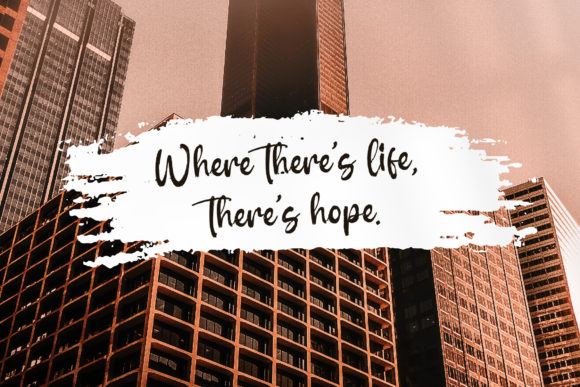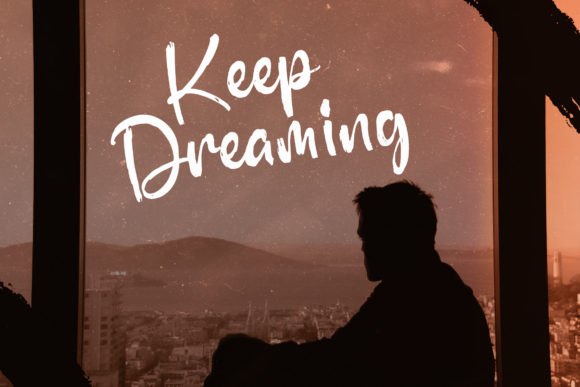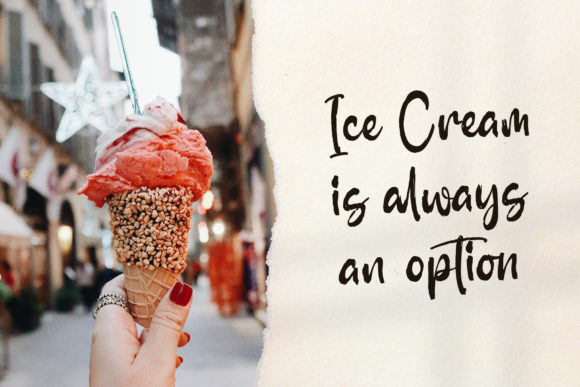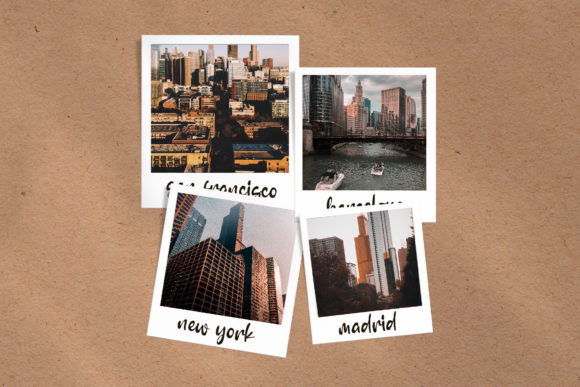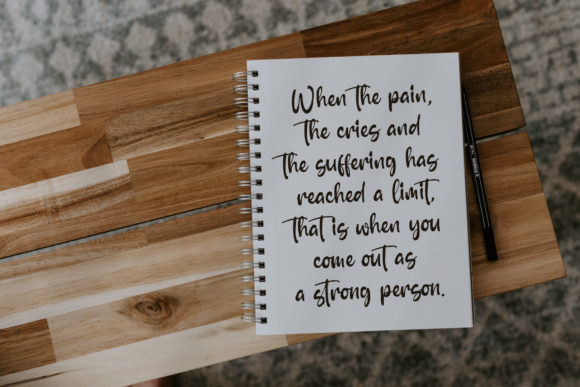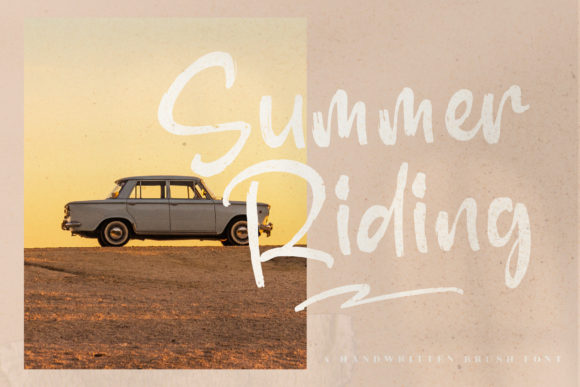
Introduction to Mankind Master Font
Have you ever found yourself staring at a blank canvas, waiting for the perfect spark to ignite your creative project? That’s exactly what happened to me when I stumbled upon the Mankind Master Font. Its elegant script style and luxurious feel transported me to a world of high-end design, and I knew I had to share it with fellow designers.
As a valuable design resource, the Mankind Master Font is a game-changer for any creative project that requires a touch of sophistication. With its thin lettering and PUA encoded glyphs, this font is perfect for adding a luxurious feel to your designs, whether it’s a logo, brochure, or even a website with a transparent background. And the best part? It’s available for free download, making it a must-have for any designer looking to elevate their work.
Key Features of Mankind Master Font
- High-quality, professional font designed for creative projects, ideal for use in logos, branding, and marketing materials.
- Features a transparent background, making it easy to use in various design scenarios and applications.
- Perfect for use in various creative projects, including digital art, graphic design, and typography-based designs.
Honest Review: Mankind Master Font
As a designer, I’m always on the lookout for high-quality design resources to elevate my creative projects. The Mankind Master Font is one such find that I’d like to share my honest review of.
- Unique and creative design style that sets it apart from other fonts
- High-quality rendering, even at large font sizes
- Transparency in the design process, which is always appreciated
One of the standout features of the Mankind Master Font is its versatility. It works well for both digital and print projects, and its unique design style makes it an excellent choice for creative projects that require a bit of flair.
- May not be suitable for projects that require a more traditional or conservative font style
Overall, the Mankind Master Font is a solid addition to any designer’s toolkit. Its unique design style and high-quality rendering make it an excellent choice for creative projects, and its free download makes it an attractive option for designers on a budget.
How to Use Mankind Master Font
The Mankind Master Font is a high-quality, versatile design resource that can elevate any creative project. With its sleek and modern aesthetic, this font is perfect for a variety of applications, from logos and branding to digital products and print materials.
Tips for Getting the Most Out of Mankind Master Font
For the best results, be sure to use the Mankind Master Font on a transparent background to really make your design pop. You can also experiment with different font sizes and colors to create a unique and eye-catching look.
The Mankind Master Font is perfect for a wide range of applications, including:
- Logo design and branding
- Digital product design
- Print materials, such as business cards and brochures
- Social media graphics and presentations